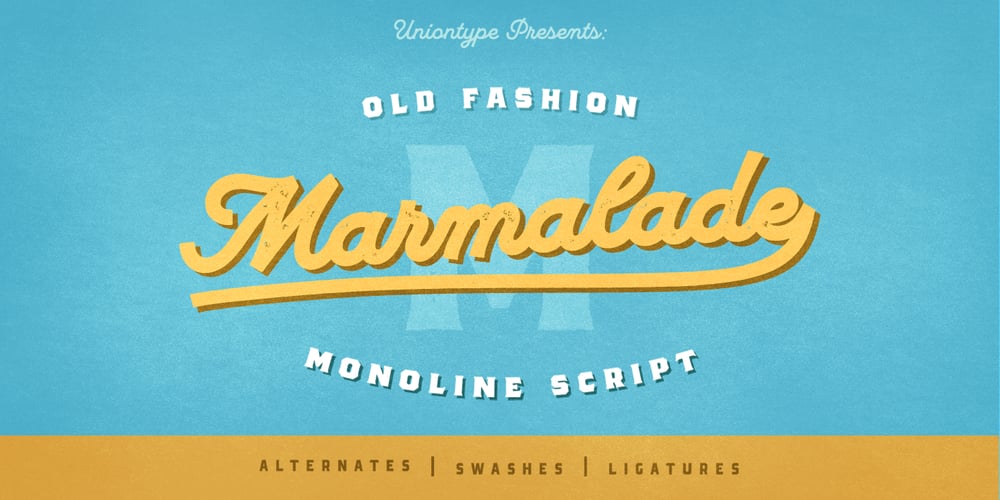
UT Marmalade Font Family was designed by Roman Avdiushkin and published by Uniontype. UT Marmalade contains 4 styles and family package options. Marmalade Script by Uniontype is a modern multilingual type family inspired by vintage monoline fonts. The family consists of light, regular, bold and printed styles. Choose сolor and offset according to your taste. Marmalade Script provides advanced typographical support with contextual alternates, ligatures and swashes. That way, you’ll have automatic access to the dozens extra glyphs in each of the fonts. Marmalade Script is good for menu, signs, packaging, posters, letterings and logos.